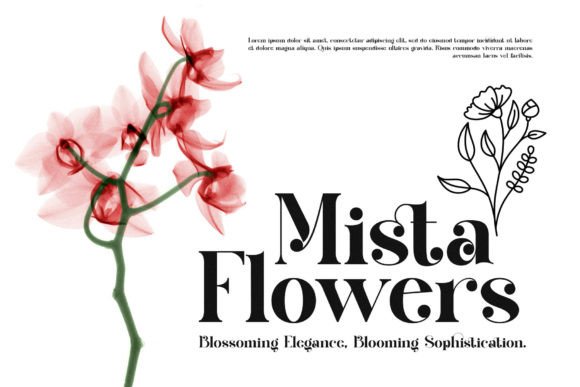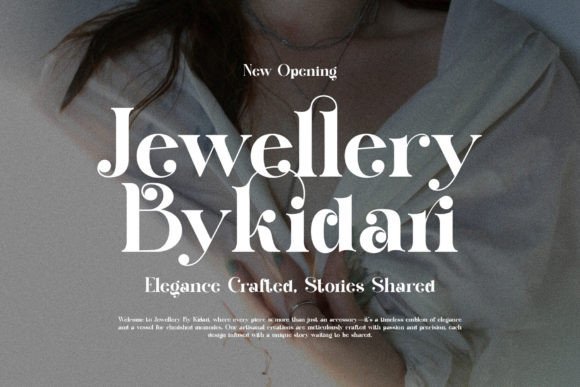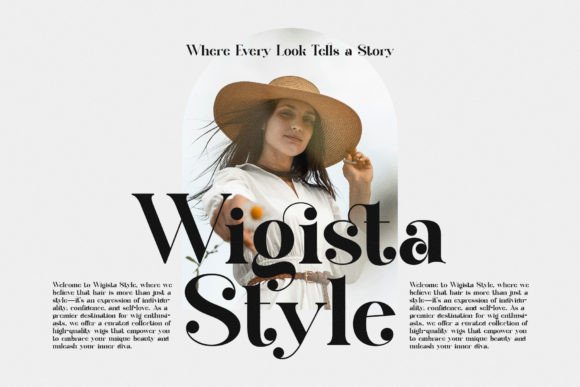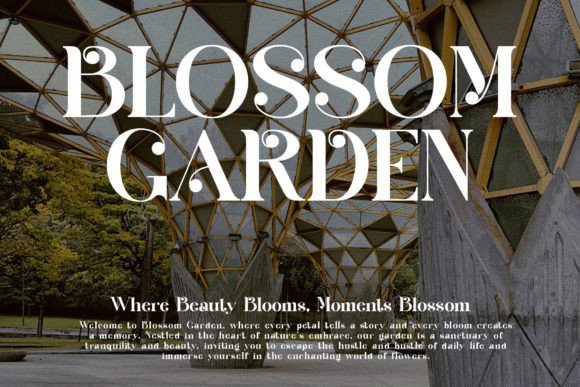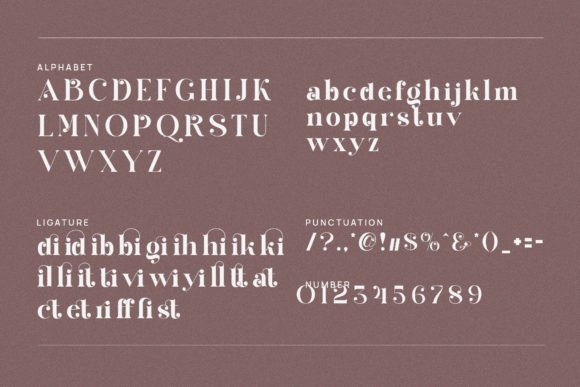
Introducing Briges Mediar Font: Elevate Your Designs with Elegance and Luxury
Are you looking for a font that exudes elegance and sophistication for your branding and logo designs? Look no further than Briges Mediar Font. This stunning serif font is crafted with luxury in mind, making it perfect for designers and crafters seeking to elevate their projects.
The Perfect Blend of Elegance and Legibility
Briges Mediar Font boasts a unique blend of classic and modern elements, making it an ideal choice for a wide range of design applications. Its elegant and refined aesthetic ensures that your designs stand out from the crowd, while its high level of legibility guarantees that your message is conveyed with clarity.
One of the key benefits of Briges Mediar Font is its versatility. This exceptional font can be used for various design projects, including:
- Branding projects: Create a lasting impression with your brand identity.
- Logos: Design a logo that embodies your brand’s values and personality.
- Social media posts: Elevate your online presence with stylish and engaging content.
- Advertisements: Grab attention and drive results with eye-catching ads.
- Labels: Add a touch of sophistication to your product labels.
- Product packaging: Create stunning packaging that reflects your brand’s luxury image.
- Photography: Add a professional touch to your photos with elegant text overlays.
- Wedding designs: Make your special day even more memorable with beautiful wedding stationery and decor.
- Watermarks: Protect your work with a subtle yet stylish watermark.
- Invitation product designs: Design stunning invitations that set the tone for any occasion.
- Stationery: Create professional and stylish stationery that reflects your brand’s image.
Why Choose Briges Mediar Font?
Briges Mediar Font offers a range of benefits that make it an attractive choice for designers and crafters. Some of the key advantages include:
- Elegant and luxurious aesthetic: Add a touch of sophistication to your designs.
- High legibility: Ensure that your message is conveyed with clarity.
- Versatility: Use Briges Mediar Font for a wide range of design projects.
- Easy to use: Seamlessly integrate Briges Mediar Font into your design workflow.
Tips for Using Briges Mediar Font
To get the most out of Briges Mediar Font, consider the following tips:
- Experiment with font sizes: Find the perfect balance between elegance and legibility.
- Pair with complementary fonts: Create a harmonious and visually appealing design.
- Use in combination with images: Add depth and context to your designs.
- Play with font colors: Add a pop of color to your designs and make them stand out.
Briges Mediar Font is an exceptional serif font that offers a unique blend of elegance, luxury, and legibility. With its versatility and ease of use, it’s perfect for designers and crafters seeking to elevate their branding, logo, and design projects. Whether you’re looking to create stunning social media posts, eye-catching advertisements, or professional stationery, Briges Mediar Font is the perfect choice.